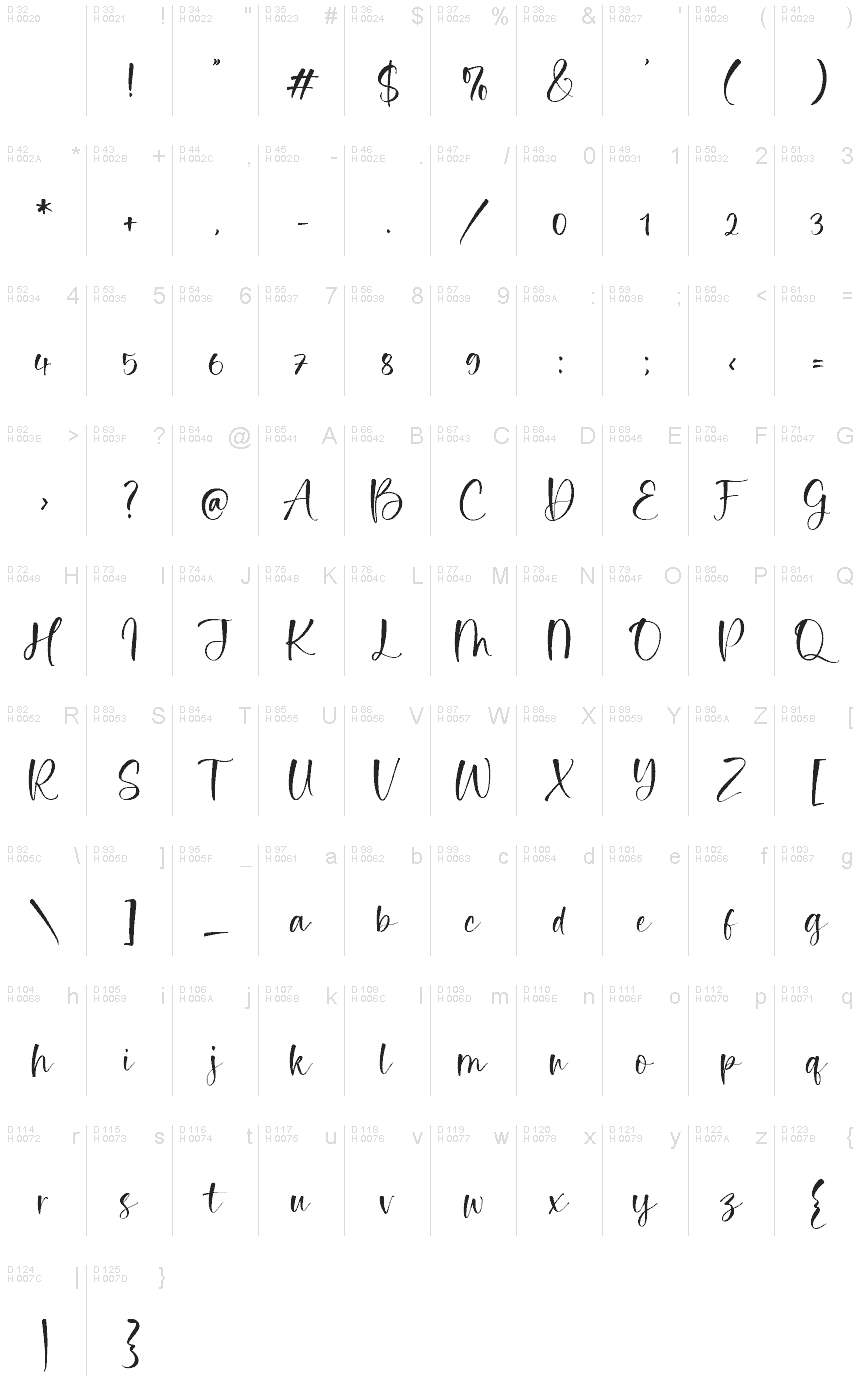
Tropical Romance
Tropical Romance font by Letterative Studio combines elegance and expressiveness in a modern script style. This free handwritten font has an artistic flair with romantic undertones, perfect for adding personalized and sophisticated touches to your projects.
Ideal for wedding invitations, restaurant menus, signage, social media graphics, branding materials, product packaging, magazines covers, blog headers, stationery items, book titles.